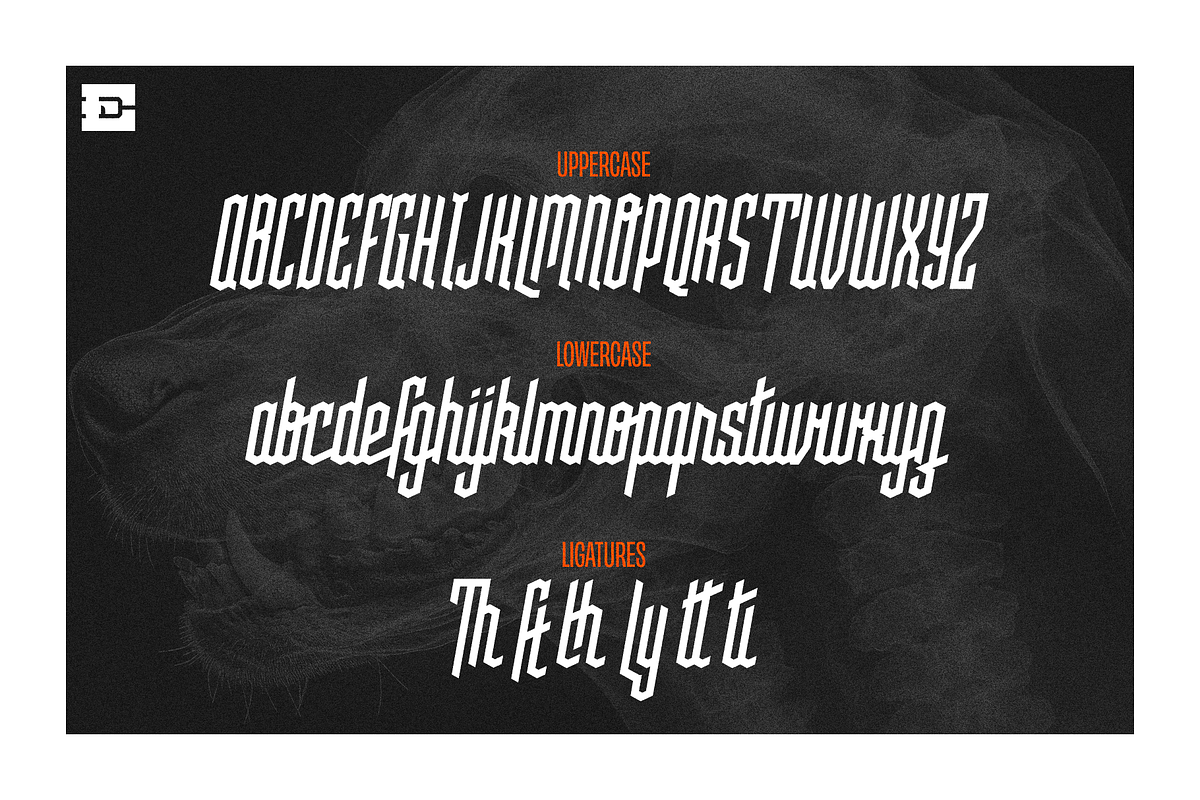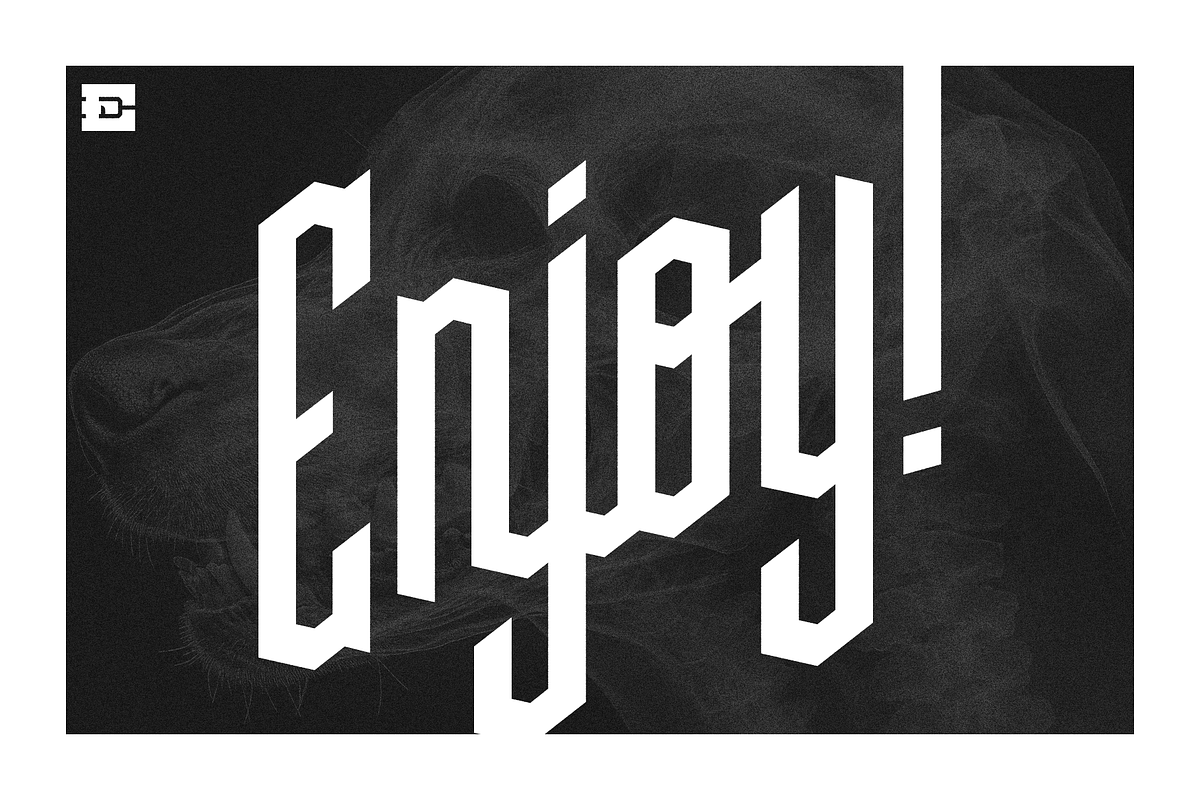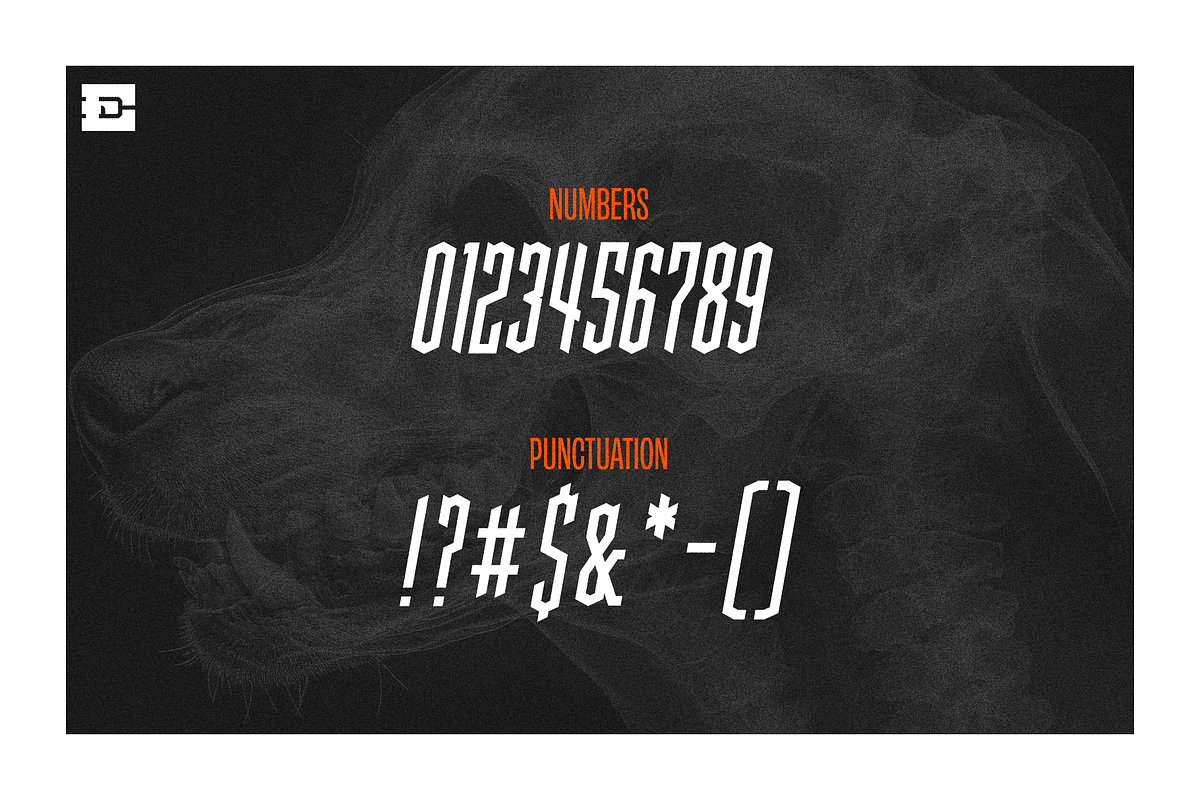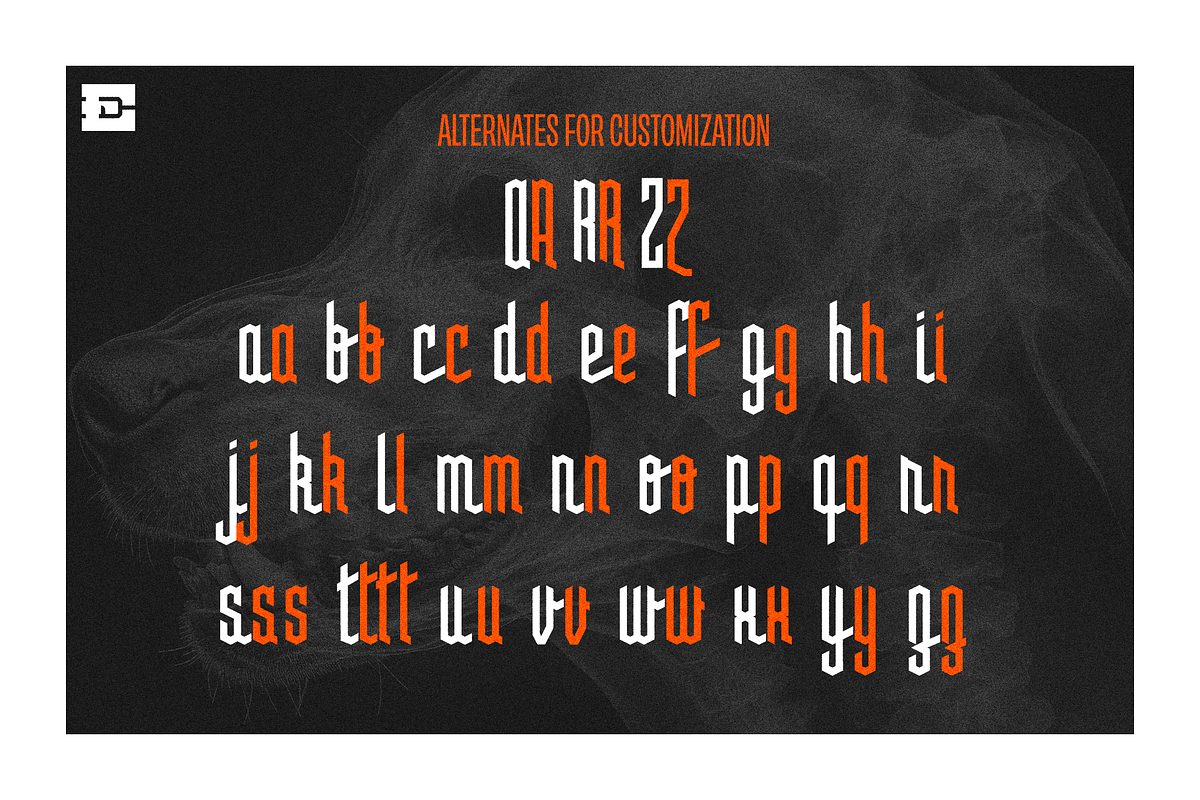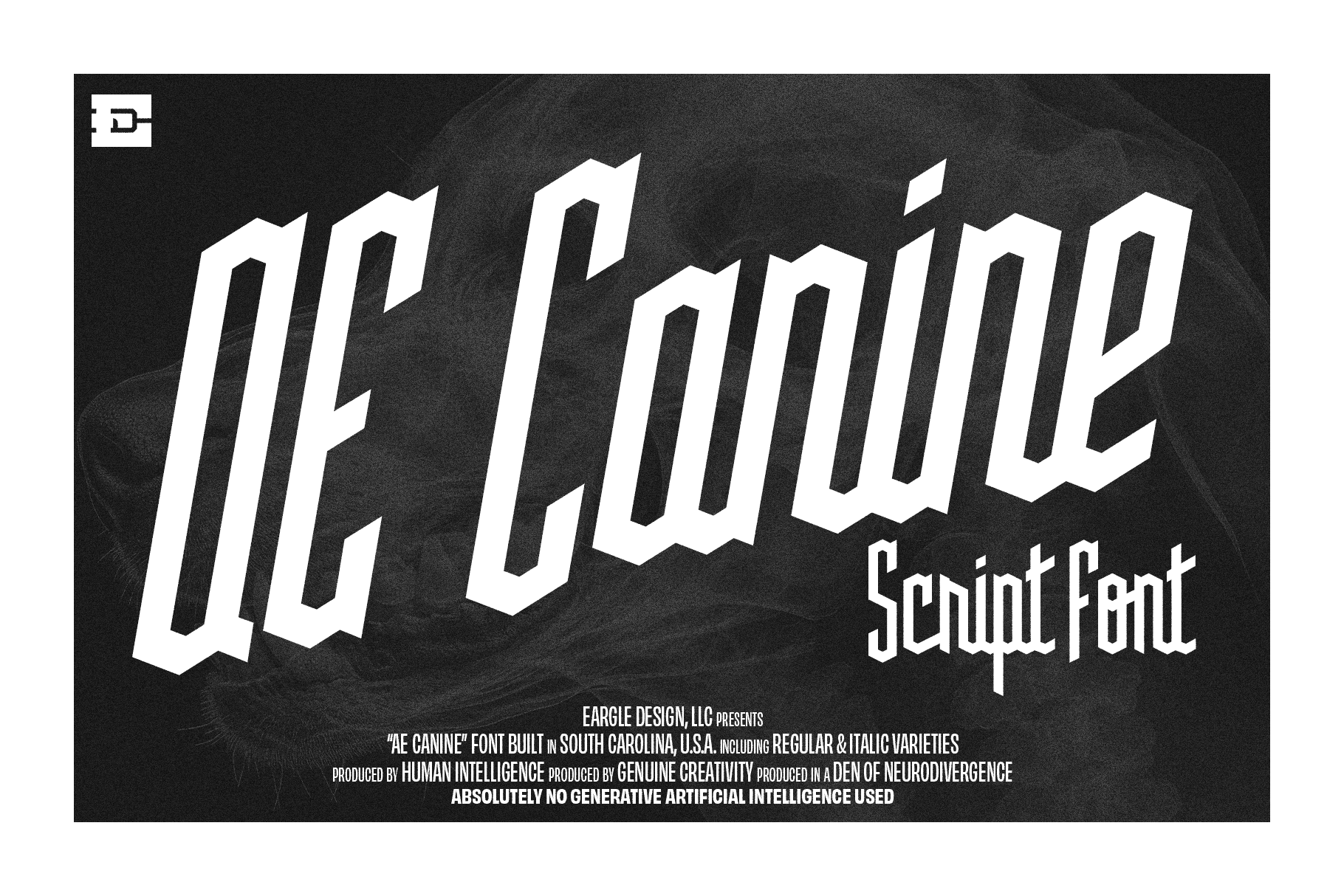
AE Canine Script Font
AE Canine is a modern, rigid script typeface with standard & italic versions both available. Complete with alternates for full customization. Some letter combinations have ligatures to bring them closer than Jimothy's front & back legs, while keeping each letter as distinguishable as Jimothy himself.
Approved uses:
When you want your copy to make a rebellious point, while going over the head of those that are the target of your rebellion.
When you chose to intimidate the foes on the other sideline with a finely crafted typeface that spits in the face of their deadbeat dads in the stands who are trying to live vicariously through their dusty offspring.
When you need to type up a letter for your children from an imaginary red-suited man, pastel long-eared mammal, or a small pixie that has a dental obsession, but your kids would recognize your handwriting.
Just because you like it.